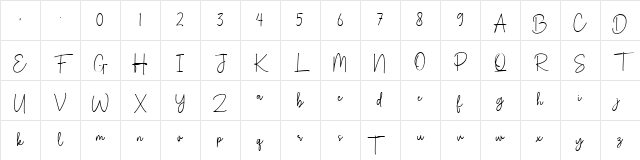
Alexandra Gistela Regular Free Font
Alexandra Gistela Regular
Designer: Iqbal Pauji
Design Context for Alexandra Gistela
Alexandra Gistela is a composed and adaptable typeface that performs quietly and consistently across a wide range of design contexts.